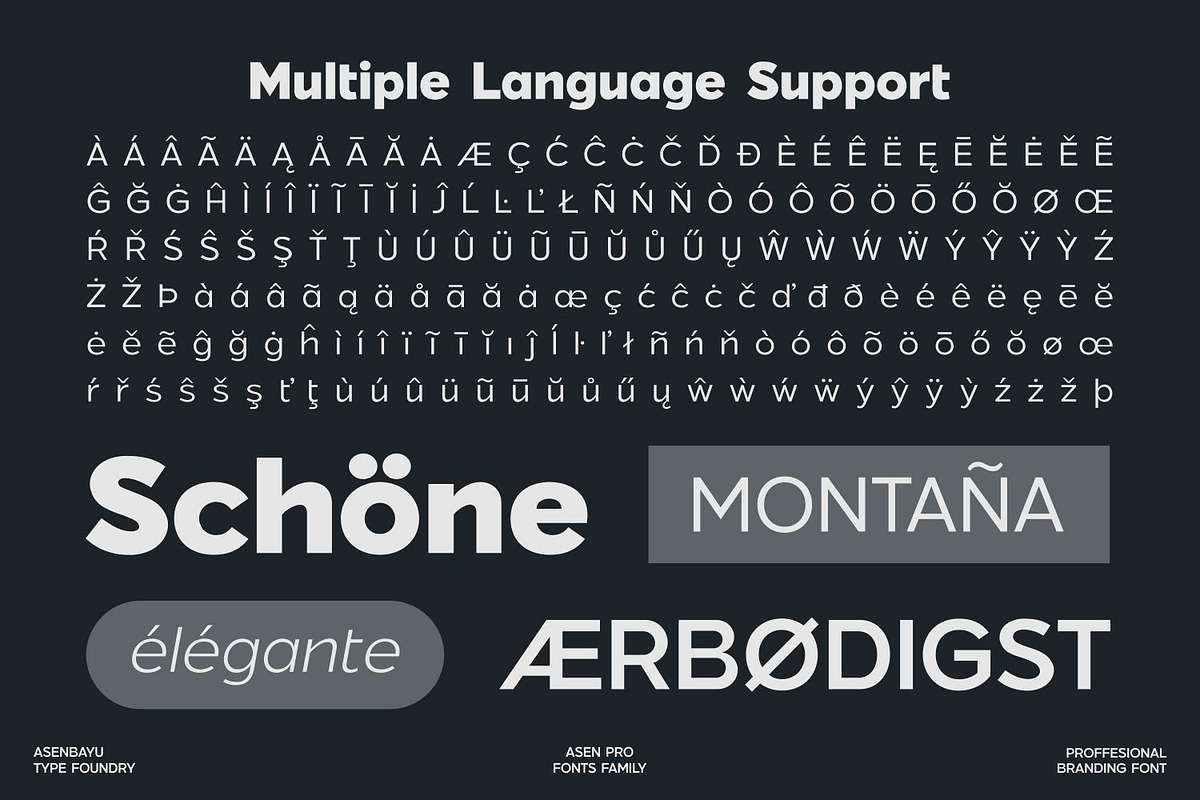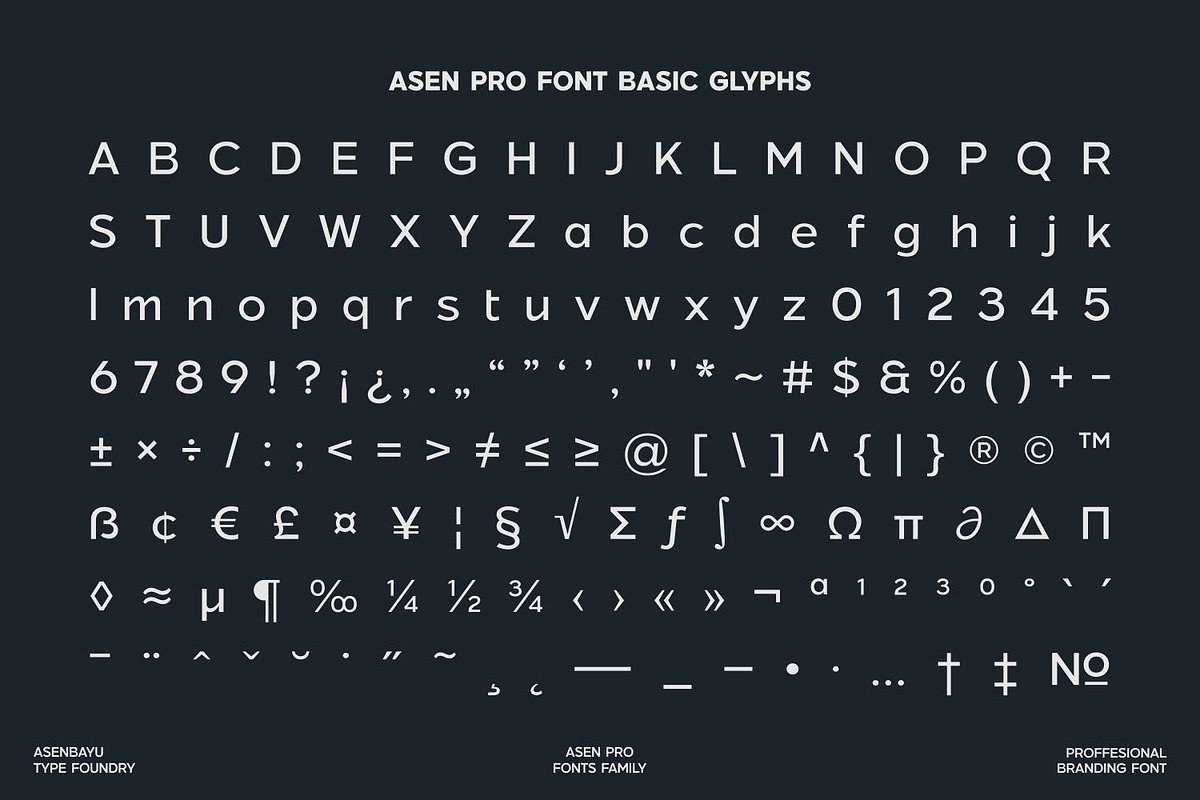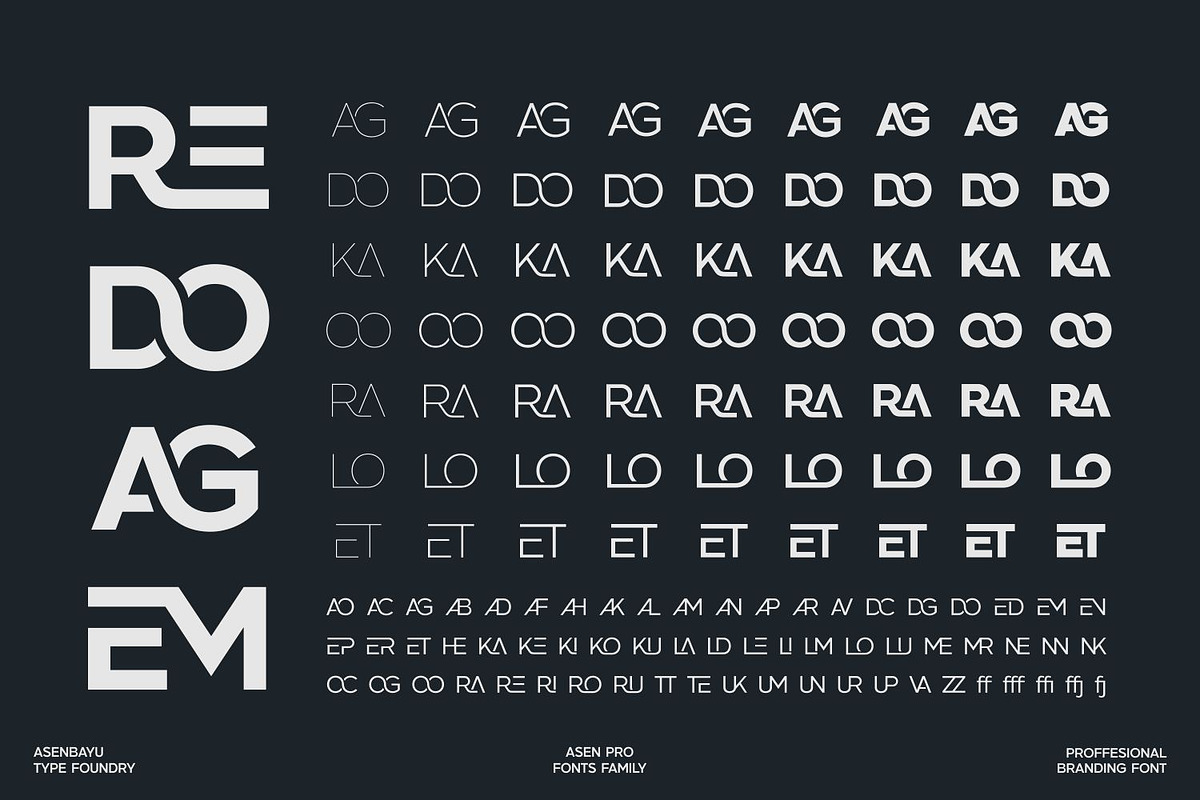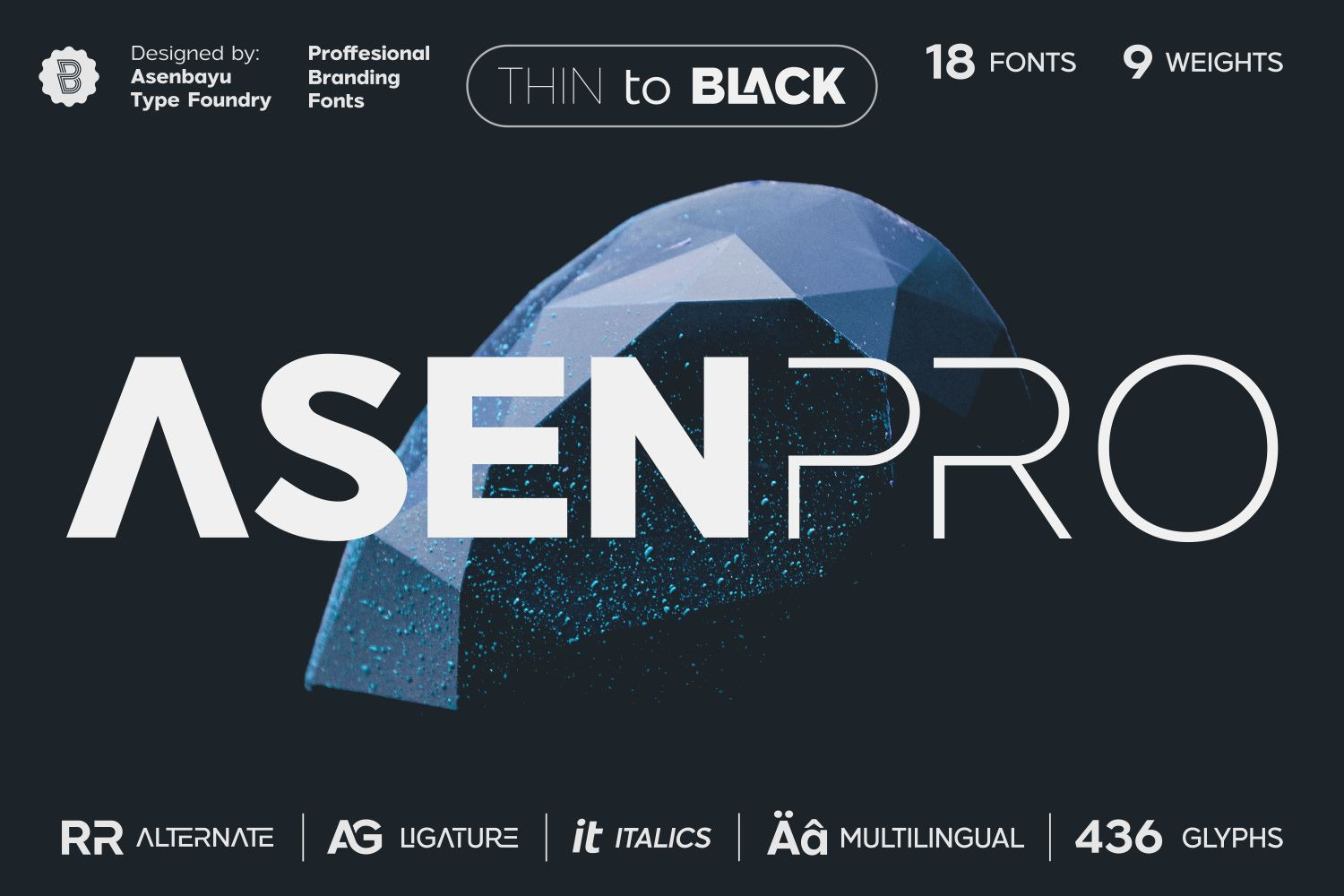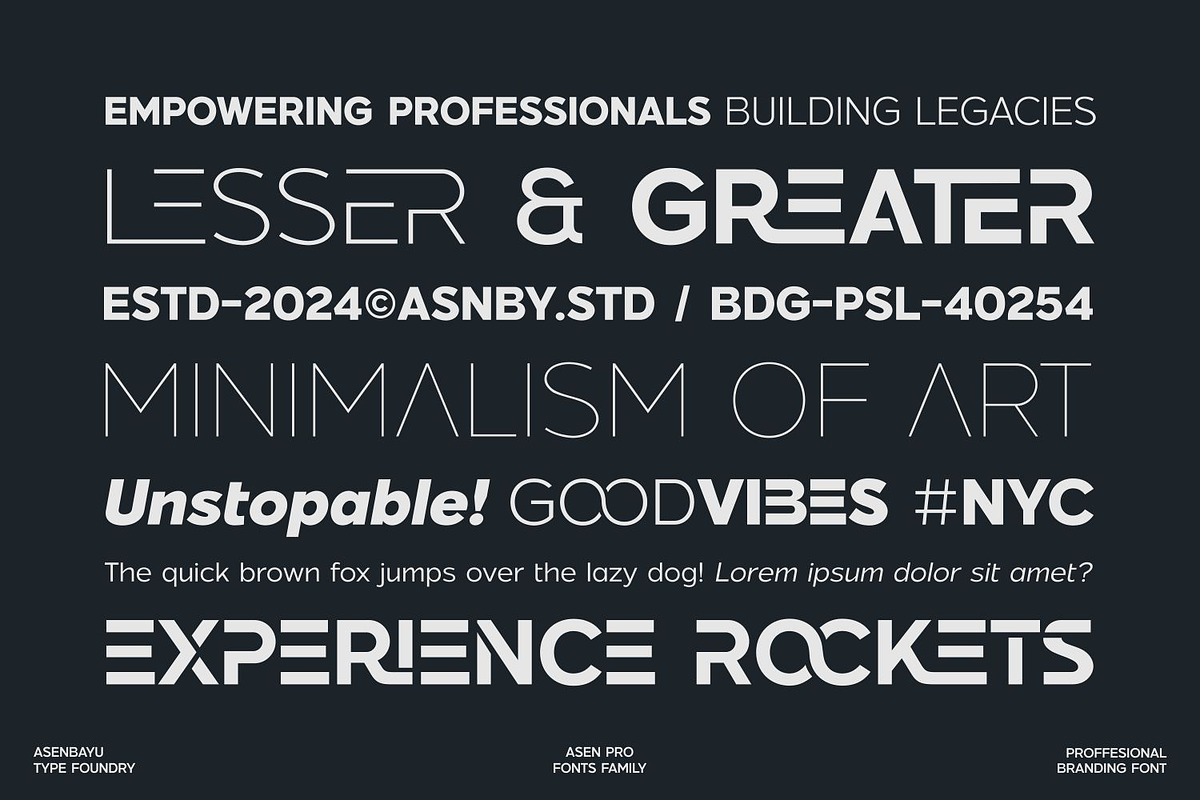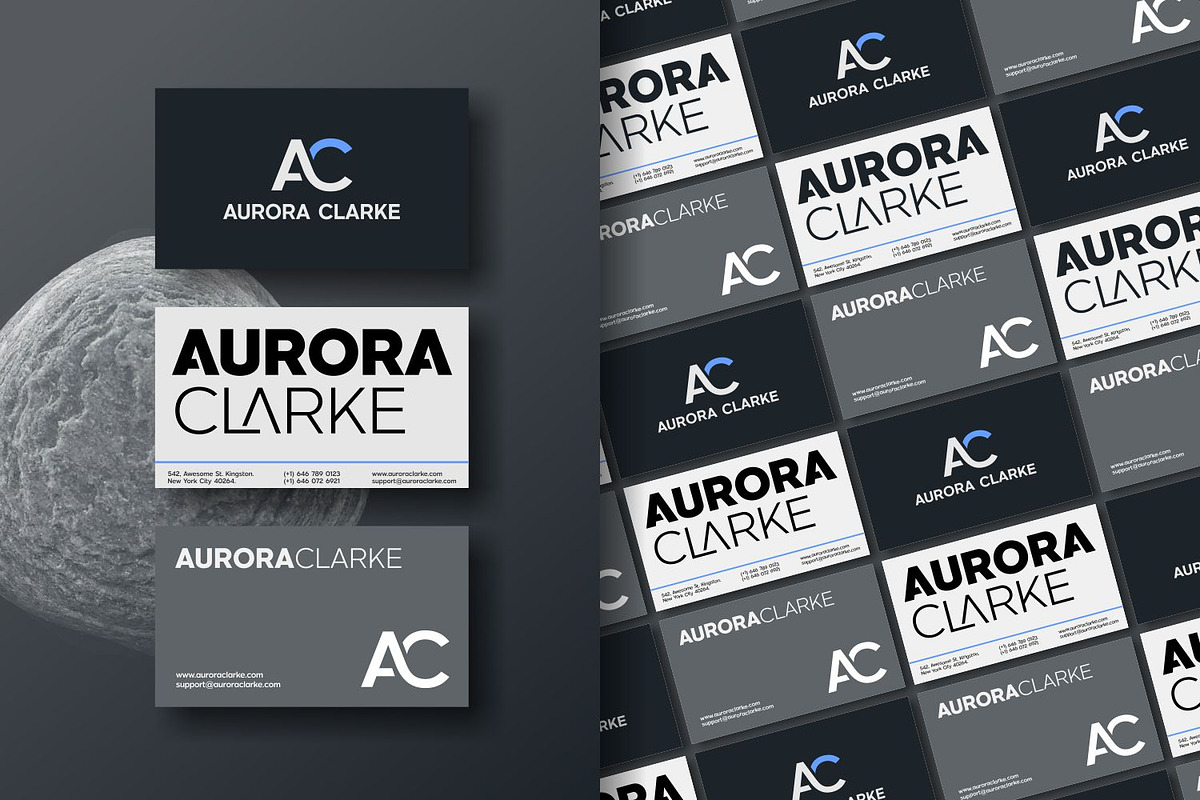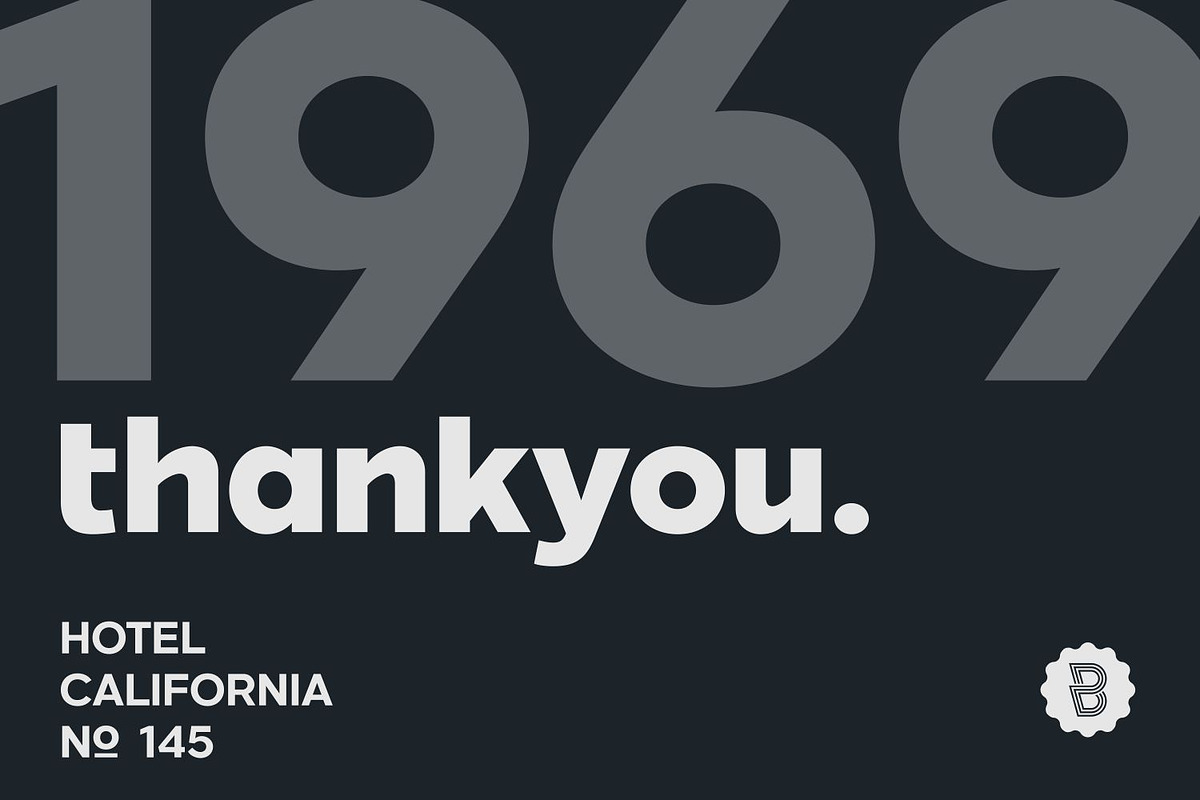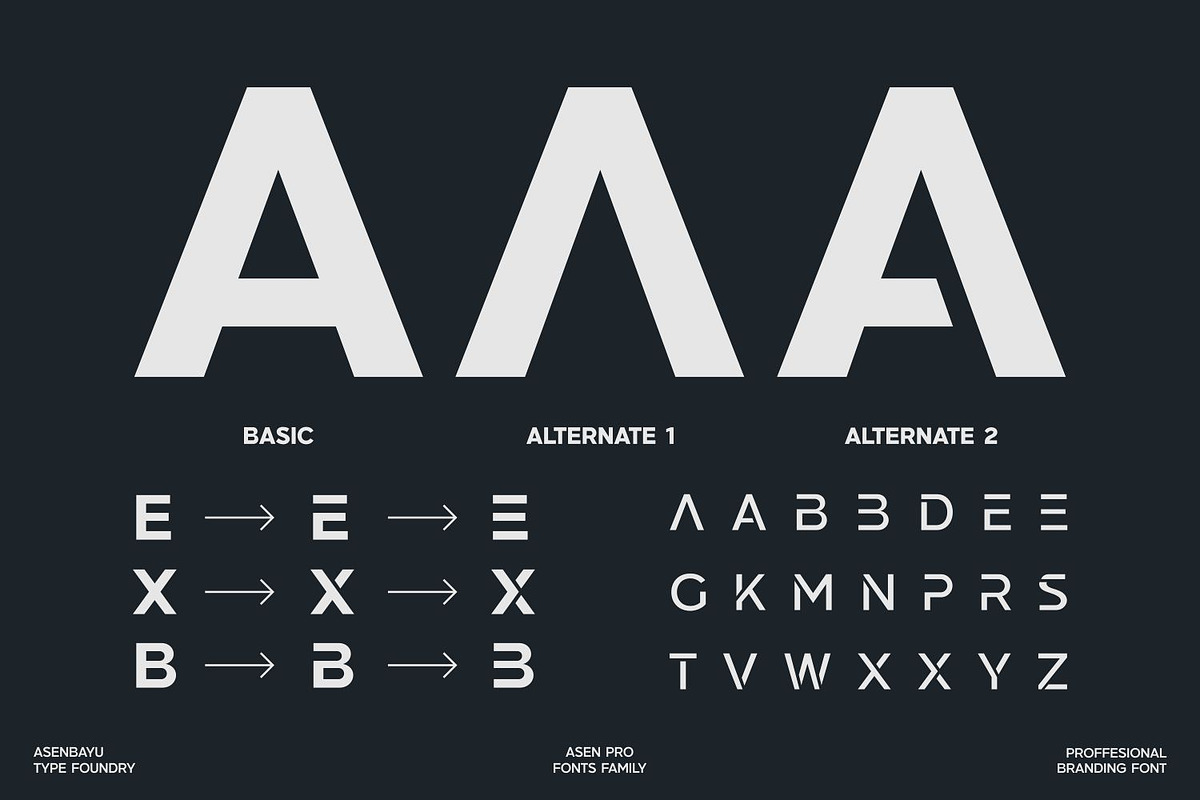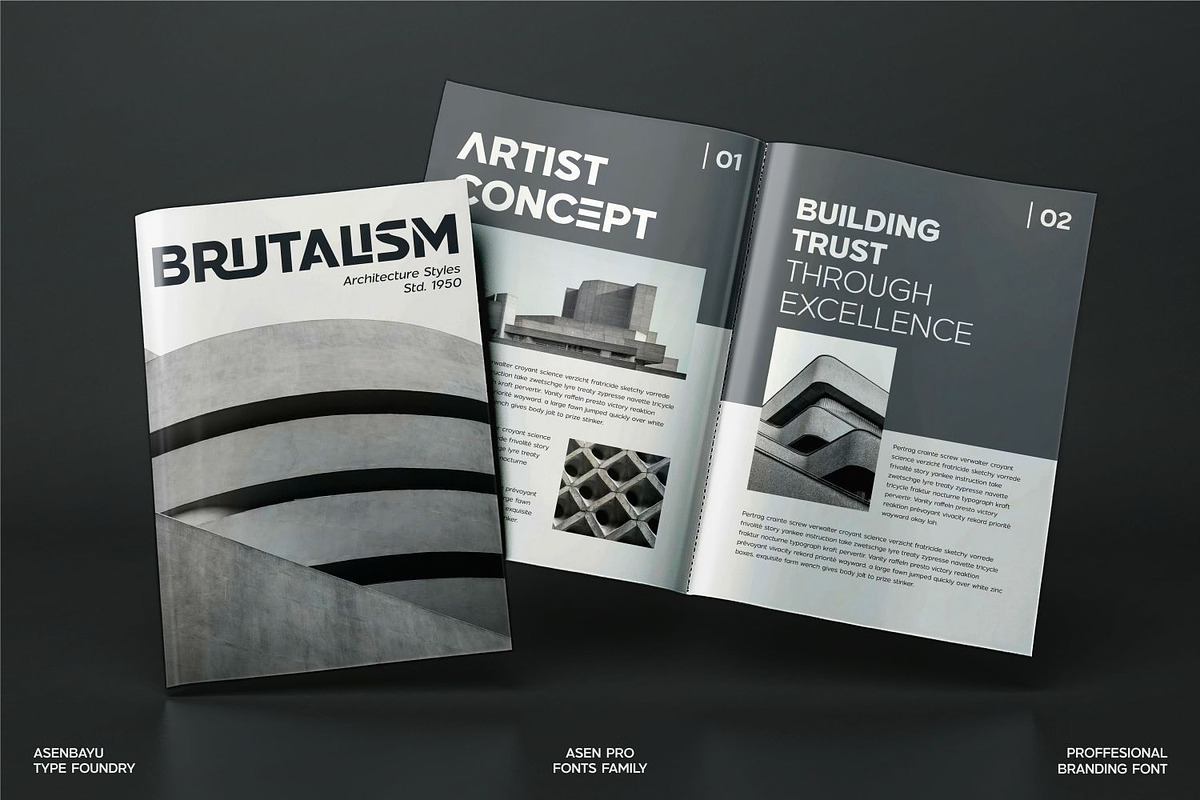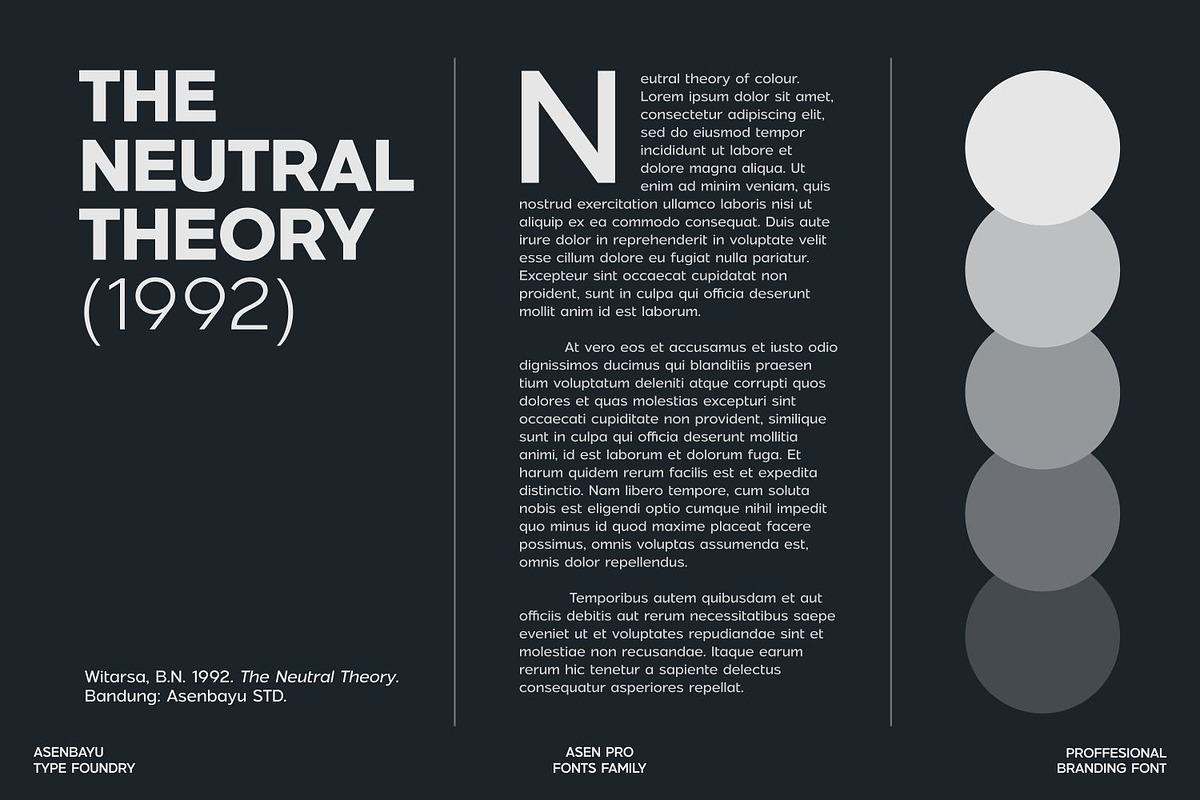
Asen Pro Fonts Family
Asen Pro is a modern professional branding font family consisting of 18 fonts. Asen Pro can create the perfect branding balance between formal and casual. This font features many ligatures and alternatives. Use it to convey desired logo designs, attractive posters, social media designs, fashion and websites.
Asen Pro font features: 18 Fonts OTF/WOFF, 9 Weight (thin to black), standard glyph, stylistic alternates, stylistic ligatures, symbol, punctuation and multiple languages supported.